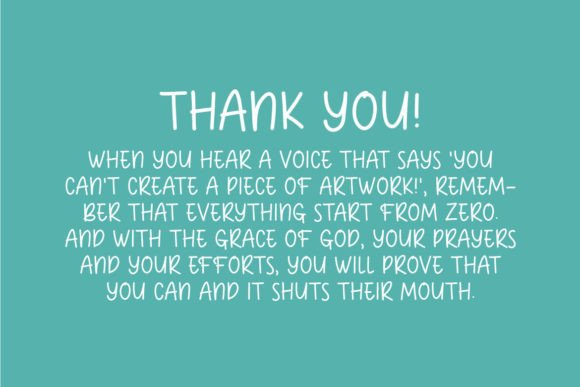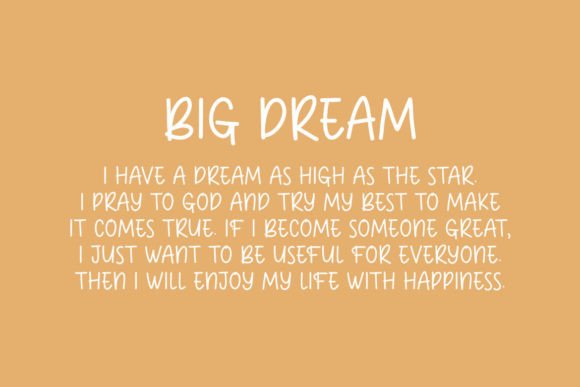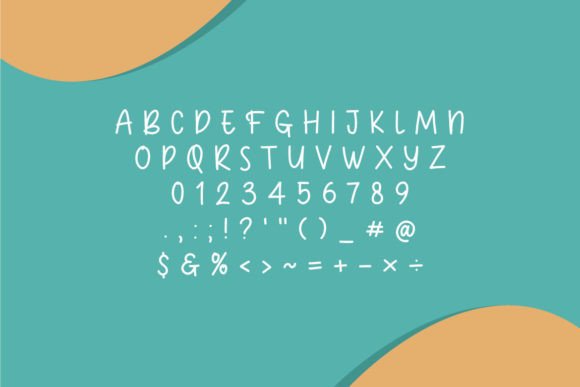
Besto Fren Font: The Ultimate Guide to Elevate Your Designs
Are you tired of using the same old fonts in your designs? Look no further than Besto Fren Font, a fun and quirky handwritten font that’s sure to take your creations to the next level. In this comprehensive guide, we’ll dive into the world of Besto Fren Font, exploring its features, benefits, and uses, as well as provide tips and tricks for incorporating it into your design workflow.
What is Besto Fren Font?
Besto Fren Font is a unique and playful handwritten font that’s perfect for adding a touch of personality to your designs. With its irregular strokes and whimsical feel, this font is sure to stand out from the crowd. Whether you’re working on a branding project, a craft, or a digital design, Besto Fren Font is an incredible asset to have in your font library.
Key Features of Besto Fren Font
- Handwritten style: Besto Fren Font boasts a genuine handwritten look that’s perfect for creating a personal and relatable feel.
- Quirky and playful: This font’s irregular strokes and unique letterforms add a touch of whimsy to any design.
- Versatile: Besto Fren Font can be used for a wide range of projects, from branding and advertising to crafting and digital design.
- Easily readable: Despite its playful nature, Besto Fren Font remains easily readable, making it perfect for body text and headings.
Benefits of Using Besto Fren Font
So why should you choose Besto Fren Font for your next project? Here are just a few benefits of using this amazing font:
- Adds personality: Besto Fren Font brings a unique and playful touch to your designs, helping you to stand out from the crowd.
- Evokes emotions: The handwritten nature of this font creates a sense of warmth and approachability, perfect for building emotional connections with your audience.
- Enhances creativity: With its quirky and irregular strokes, Besto Fren Font inspires creativity and playfulness in your designs.
- Easy to use: This font is incredibly easy to use, and can be easily integrated into your design workflow.
Using Besto Fren Font in Your Designs
So how can you start using Besto Fren Font in your designs? Here are a few ideas to get you started:
- Branding and logos: Use Besto Fren Font to create a unique and memorable logo that stands out from the crowd.
- Social media graphics: Add a touch of personality to your social media graphics with Besto Fren Font, perfect for creating engaging and shareable content.
- Crafting and DIY projects: Use Besto Fren Font to add a personal touch to your crafting and DIY projects, such as handmade cards and gift tags.
- Digital design: Incorporate Besto Fren Font into your digital designs, such as website headers, email newsletters, and digital invitations.
Tips and Tricks for Working with Besto Fren Font
Here are a few tips and tricks to help you get the most out of Besto Fren Font:
- Experiment with colors: Besto Fren Font looks great in a range of colors, so don’t be afraid to experiment and find the perfect hue for your design.
- Mix and match: Combine Besto Fren Font with other fonts and design elements to create a unique and visually appealing design.
- Pay attention to spacing: Make sure to adjust the spacing between letters and words to ensure that your text is easily readable.
- Have fun: Most importantly, have fun with Besto Fren Font! This font is all about adding a touch of personality and whimsy to your designs.
In conclusion, Besto Fren Font is an incredible asset to any designer’s font library. With its unique and playful handwritten style, this font is perfect for adding a touch of personality to your designs. Whether you’re working on a branding project, a craft, or a digital design, Besto Fren Font is sure to elevate your creations and help you stand out from the crowd. So why not give it a try today and see the difference it can make?